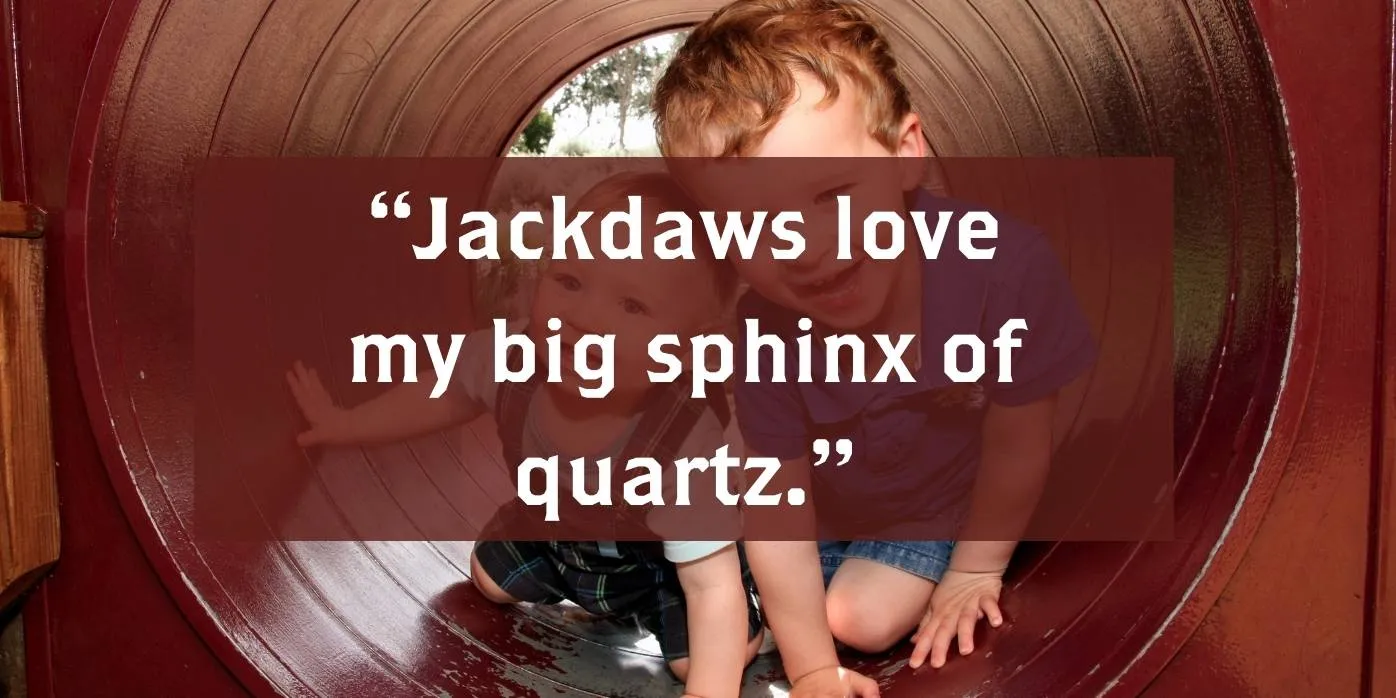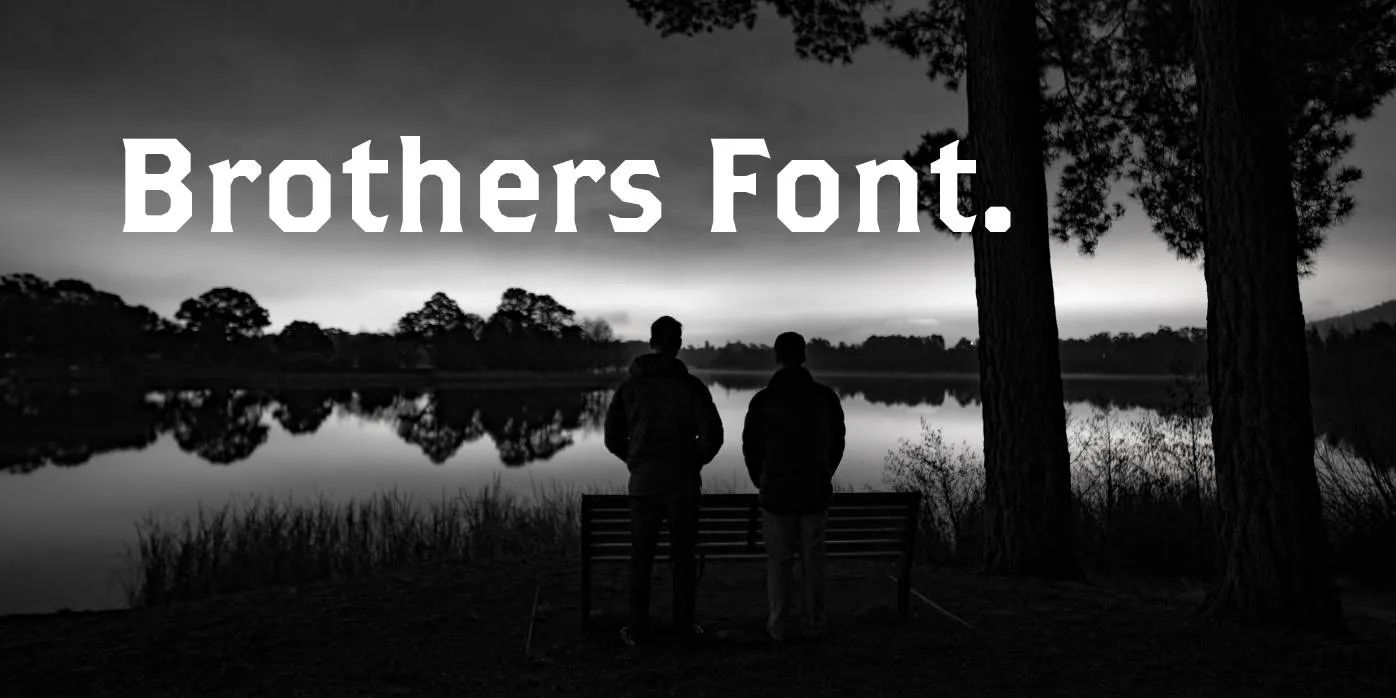
Brothers Font
Brothers Font was developed and manufactured by John Downer. This classy font belongs to the Display typeface. It is a must-have font in your collection. It looks best when used on a white background.
This awesome font contains 3 different styles that are given porter, beveled, and shadow. Each has its own unique characteristics. This amazing font also contains numbers, punctuation marks, and limited characters. This font is best for Adobe Illustrator.
This own unique look adds to your design. There are also 2 fonts available in this pack. The additional fonts are halftone and halftone condensed. You can use this typeface by making Pairing with Freshman Font.